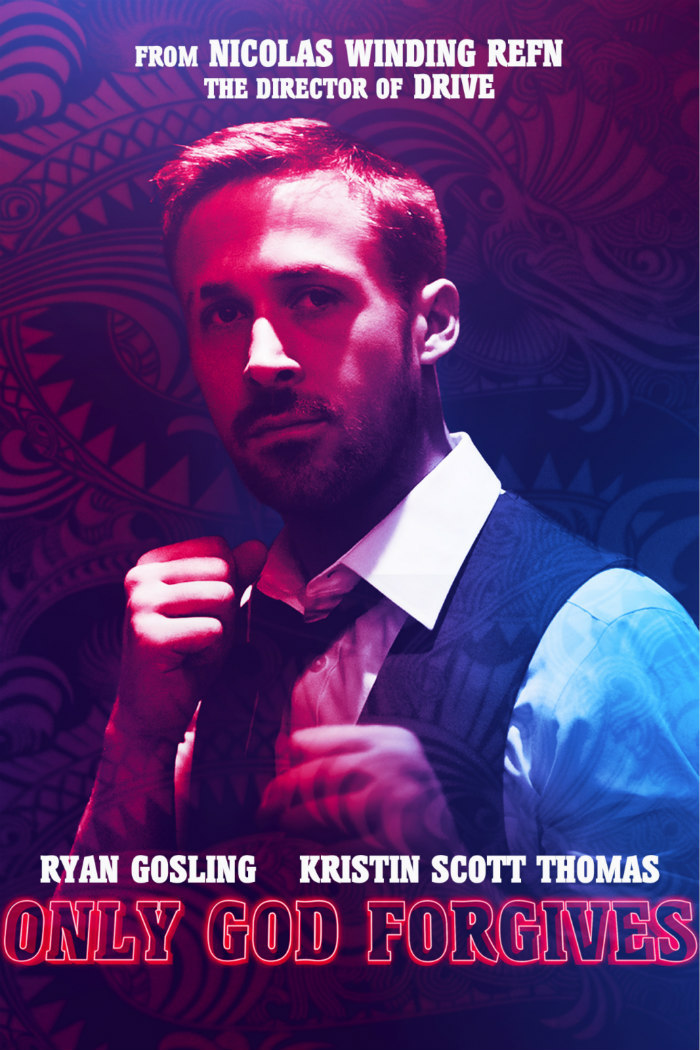
Only God Forgives Font
CrimeOnly God Forgives is a 2013 neo-noir crime film directed by Nicolas Winding Refn. It follows a drug smuggler in Bangkok who seeks revenge for his brother's murder, delving into a dark and visually striking exploration of violence and redemption.
The film poster of "Only God Forgives" features the title in a slab serif font called Helium ExtraBold, designed by English type designer Steve Jackaman. You can view and download the font here.